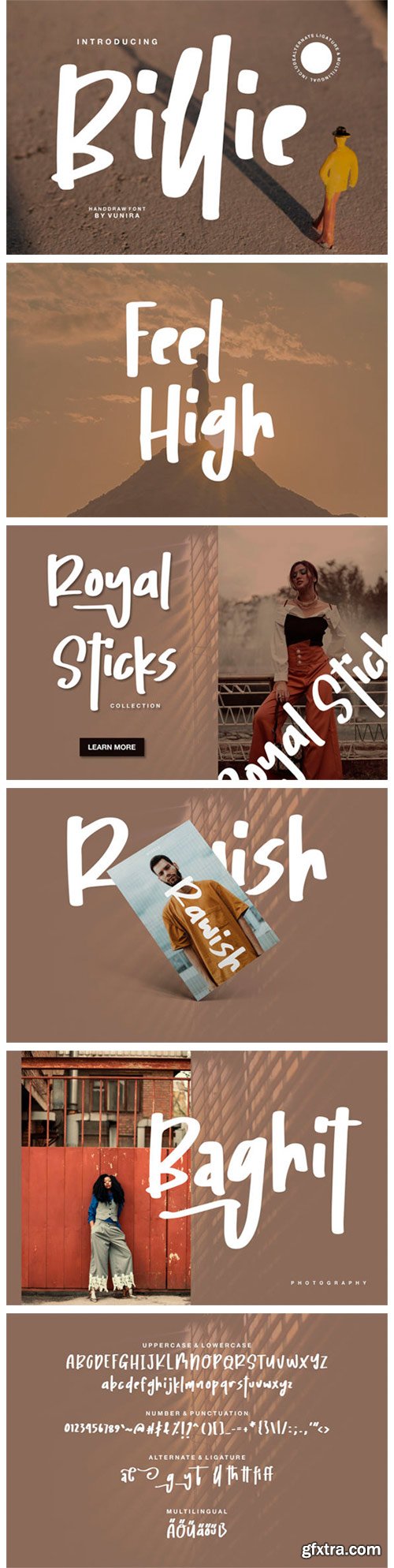
Billie Font
Billie is a sweet paint brushed display font. It is defined by smooth curves and is perfect for fashion branding or editorial designs. Add it confidently to your projects, and you won’t be disappointed.